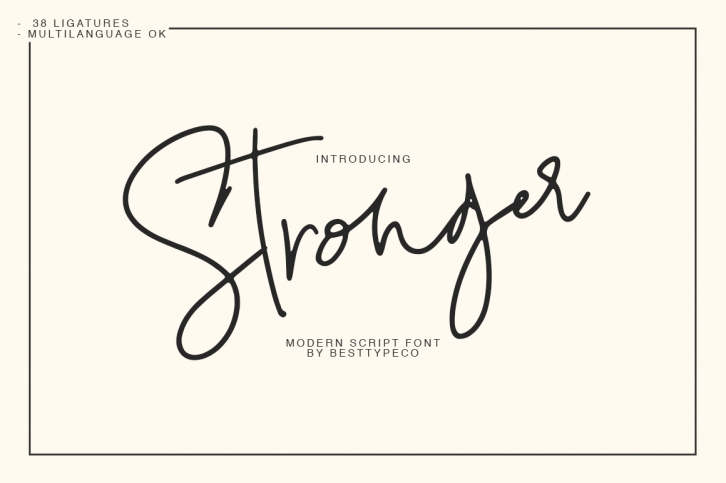
Stronger is a great font that was designed by Besttypeco. Imagine the amount of combinations you can create using this font! The archive is 21.8 MB and it was released on September 27, 2018. Stronger looks beautiful on wedding invitations, greeting cards, logos, posters, labels, t-shirt designs, logos, business cards and is perfect for use in ink or watercolor works, fashion, magazines, packaging and food menus, children's books and more!